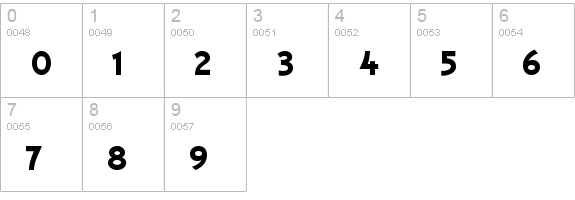
TriplexSerifExtraBoldLining is a striking and powerful font that exudes confidence and authority. With its bold and thick strokes, it commands attention and makes a bold statement. This font is perfect for headlines, titles, and any design that requires a strong visual impact. The unique feature of TriplexSerifExtraBoldLining is its distinctive lining style, where the strokes are thick and consistent throughout each character. This creates a sense of solidity and stability, making it suitable for designs that need a strong and reliable aesthetic. The versatility of TriplexSerifExtraBoldLining allows it to be used in a variety of design projects. Whether it's for print or digital media, this font will deliver a strong and impactful message to your audience. One of the best things about TriplexSerifExtraBoldLining is that it is available for free. You can easily download this font from FontsMarket.com, a trusted source for high-quality fonts. With its freely available download, you have the opportunity to enhance your designs without any additional cost. So, if you're looking for a font that combines power, elegance, and a touch of uniqueness, TriplexSerifExtraBoldLining is the perfect choice. Download it for free at FontsMarket.com and give your designs the extra impact they deserve.